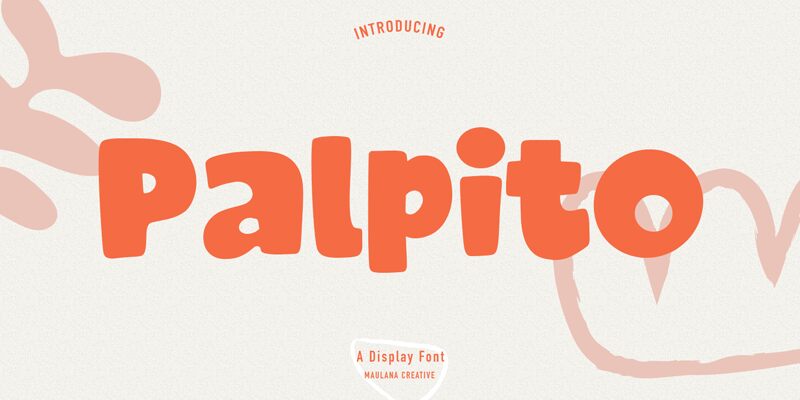
Palpito Free Font Regular
Unleash your creativity with Palpito, a unique display font designed by Maulana Creative.
Its casual handwritten style and extra-bold weight make it perfect for creating eye-catching logos, movie titles, and social media graphics. The rough strokes and condensed, fun characters add a playful touch to any project, while the inclusion of ligatures allows for even more creative possibilities. Whether you're working on a short text or a lengthy letter, Palpito's versatility and support for over 100 languages make it an ideal choice. Use it as your primary font or pair it with a sans or serif for added impact. With Palpito, the potential for creating stunning designs is limitless.
Let this font elevate your next creative endeavor and make a lasting impression with its distinctive charm.